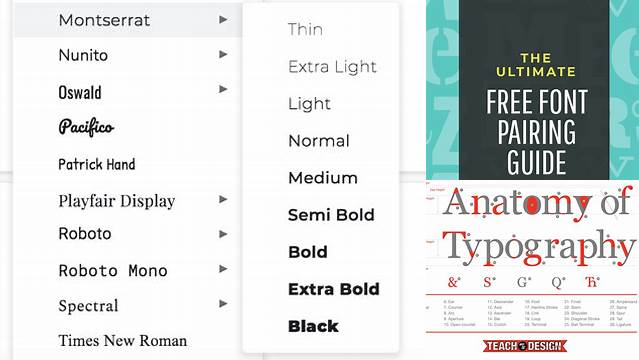
Font Family Free
Looking for the perfect font family free to elevate your designs? You're in the right place! Fonts are the unsung heroes of design, subtly influencing how your message is received. Choosing the right font family can make or break the visual appeal and readability of your work. In this comprehensive guide, we'll dive deep into the world of free font families, exploring their uses, how to find them, and tips for making the most of them. Whether you're a seasoned designer or just starting, understanding font families is crucial.
H2: What Exactly is a Font Family?
Alright, guys, let's break it down! A font family free is a set of fonts that share a common design and style, but with variations in weight, width, and slant. Think of it like a family of fonts – they all have the same DNA, but each member has its own unique personality. This consistency is super important for creating a cohesive and professional look. Instead of using completely different fonts for your headings, body text, and subheadings, you can use different fonts within the same family. This keeps everything looking unified and easy on the eyes. Common font families include Arial, Times New Roman, and Helvetica, which you probably already know, but there's a whole world of free font families out there just waiting to be discovered. Each font within a family is designed to work well with the others, ensuring that your design will be consistent and readable. Font family free offer a variety of options, such as bold, italic, and condensed versions, allowing you to create visual hierarchy and emphasize key information without switching to completely different fonts, helping you maintain a consistent brand identity. When choosing a font family free, consider the mood or tone you want to convey. Is your project serious and professional, or fun and playful? The font family should match the overall design aesthetic. And don't forget about readability! Always make sure the font is easy to read, especially for body text. You can find font family free options on Google Fonts, Font Squirrel, and other websites dedicated to font collections. Be sure to check the license before using any font in your project. Some fonts are free for personal use but require a license for commercial use. This will help you comply with copyright laws and avoid any legal issues.
H3: Choosing the Right Font Family for Your Project
Choosing the right font family free is a critical step in any design project, guys! The right font family can greatly enhance the overall visual appeal and effectively communicate your message. The selection process involves careful consideration of several factors: the project's purpose, the target audience, and the desired tone. The initial step is determining the primary goal of your project. Is it a website, a brochure, or a social media post? Different projects have different requirements and the font families suitable for websites are not always ideal for print materials, and vice versa. The next factor to consider is your target audience. Are you aiming at a younger demographic or an older, more professional group? The font family should resonate with them. Also, assess the overall tone that you want to establish. A playful project might benefit from a font family that’s more creative and informal, while a professional project should stick to a more classic and elegant font family. Now, let's discuss the characteristics of different font families, and the most commonly used types of fonts you can get as font family free are: Serif fonts, with their traditional design, are often seen in books and newspapers, and are excellent for projects that require a traditional and refined feel. Sans-serif fonts are much more modern and clear, and they’re best used for digital interfaces and modern designs. Display fonts are designed for headings and titles. They are usually very unique and visually striking. Monospace fonts have all characters occupying the same horizontal space, and are useful for code and text-heavy projects. When choosing a font family, consider the available weights and styles. A good font family often includes several weights (like light, regular, bold, black) and styles (like italic, condensed, and expanded). This provides flexibility in creating visual hierarchy within your designs.
H2: Where to Find Awesome Free Font Families
So, where can you find these amazing font family free resources? There are tons of great websites out there, but let's highlight some of the best. This is where the fun begins! One of the most popular and reliable sources is Google Fonts. It's a massive library of open-source fonts, all free to use for both personal and commercial projects. You can easily browse, search, and download fonts directly from their website. The site also provides previews and allows you to compare fonts. Another excellent option is Font Squirrel, known for its high-quality fonts that are free for commercial use. They have a curated selection of fonts, so you can rest assured that you'll find some gems. Font Squirrel also offers a font identifier tool, which can help you identify fonts from images. Then there is DaFont, which has a huge collection of fonts. However, it's important to note that not all fonts are free for commercial use, so always double-check the license before using them in your projects. Be aware that it's essential to check the license agreements for each font. Some fonts are licensed under the SIL Open Font License, which allows for free use, modification, and distribution, while others may have more restrictive licenses. Font family free is usually easier to find when you search on the internet, but be sure to check the terms of use before downloading and using any font to ensure you’re complying with the requirements. In addition to these sites, check out other sites like 1001 Fonts and Behance, as well. These sites often feature collections of free fonts and can be great sources of inspiration. Explore them, and you might stumble upon some hidden treasures.
H3: Google Fonts: Your Go-To Resource for Free Fonts
Google Fonts has become the standard resource for anyone looking for a font family free. Its wide selection, user-friendly interface, and open-source nature make it the top choice for designers and developers of all levels. As mentioned earlier, all fonts on Google Fonts are free for personal and commercial use, making it a safe and practical solution for various projects. Its user interface is incredibly intuitive, allowing for easy browsing and filtering of fonts. You can browse fonts by categories (serif, sans-serif, display, etc.) or filter by properties such as thickness, width, and slant. Google Fonts also allows you to preview the fonts, and see how they look in different text styles and sizes. The site offers suggestions for font pairings to help you get the most out of your font family free collection, which is great for beginners. It also allows you to download all the font files in one go. The site also provides detailed information about each font, including its designer, style options, and the license terms. Google Fonts also provides an embed code for the fonts to be used in web projects. This allows you to easily integrate the fonts into your website by simply copying and pasting the code into your HTML. Google Fonts is also optimized for fast loading times, and this is another reason why it is so popular. It uses a content delivery network (CDN) to ensure that the fonts are loaded quickly on different devices and browsers. The fonts are also available in a variety of formats, like the standard formats (e.g., .ttf, .otf) so they can be used in any design software or operating system. Because of its flexibility, Google Fonts has made it the go-to option for designers globally, and the best place to start when you are looking for font family free.
H2: Essential Tips for Using Free Font Families Effectively
Alright, guys, you've got your font family free, now what? Here are some tips to use them effectively. Let's get your designs looking sharp! First, remember the importance of pairing fonts wisely. Avoid pairing fonts that are too similar, as this can look uninspired. Instead, experiment with contrasting styles. Try using a bold, attention-grabbing font for headings and a more subtle font for body text. This contrast creates visual interest and improves readability. Second, pay attention to readability, especially for body text. Choose fonts that are easy to read at different sizes and on different devices. Avoid overly decorative or complex fonts for large blocks of text. Simple, clean fonts are usually your best bet for body text. Third, consider the context of your design. Think about where your design will be used. A font that looks great on a website might not be the best choice for a printed brochure. Fourth, respect the font's license. Make sure you understand the license terms for each font family free you use. Some fonts are free for personal use but require a license for commercial use. Don’t get caught up in legal issues! Lastly, test your fonts on various devices and browsers. The way a font looks can vary depending on the device and browser. Always preview your design on different platforms to make sure it looks consistent across the board. With some practice, you'll quickly learn how to find and use font family free to their maximum potential.
H3: Font Pairing: Finding the Perfect Combinations
Font pairing is an art form that can elevate your designs from good to fantastic. The perfect font pairing creates visual harmony and strengthens the overall message. Guys, let's talk about the different types of font pairings and how to create a great one. Start by understanding that contrast is important. Pairing fonts that are too similar can make your design look boring, whereas a good contrast highlights each font’s unique characteristics. Let's discuss the common types of font pairings: * Contrast pairing: Combining different font types creates a powerful visual contrast. This is a great way to make key elements like headings stand out. * Similar font pairings: This pairing involves fonts that share similar qualities. They can be used to create a sense of consistency and unity. * Monotype font pairings: These pairings use fonts that are closely related, but with distinct differences. This method of font family free creates subtle differences that keep your design dynamic. Also, there is a simple approach you can use: * Use a serif font with a sans-serif font. These fonts have very different styles. This method can create excellent contrast. * Pair a bold font with a lighter one. This creates clear visual hierarchy. * Pair a decorative font with a simpler one. This way you will keep your design interesting and readable. * Explore different font families. Many font families include a diverse range of styles, and offer the options you need for any kind of design. When you're trying to create the perfect font pairing, don't be afraid to experiment. There are lots of resources for pairing font suggestions. Websites like Google Fonts provide suggestions for font pairings. When experimenting, always make sure you prioritize readability and the overall visual balance. With a little practice, you’ll become an expert in pairing fonts. The best thing you can do is to familiarize yourself with a wide range of font family free to understand which styles will work well together.
H2: Understanding Font Licenses: A Must-Know
It's crucial to understand font licenses when you use font family free, my friends! Font licenses determine how you can use a font and what you're allowed to do with it. Ignoring these licenses can lead to legal issues, so let's break it down. The main types of font licenses are: * SIL Open Font License (OFL): This is a very liberal license. Most fonts on Google Fonts are licensed under the OFL. It allows for free use, modification, and distribution, even for commercial purposes. * Desktop License: This type of license is designed for use in design software for print and digital design. * Web License: This license is specifically for the use of fonts on websites. It usually covers a certain amount of page views or traffic. * Commercial Use: This license is needed when a font is used for commercial purposes. This license can be complex and may have different terms and conditions depending on the font and the licensing company. It’s important to read the fine print and understand the license terms before using any font family free, especially for commercial projects. Always check the specific terms of the license for each font. Some fonts are free for personal use, but require a license for commercial use. If you're unsure about a license, it’s always best to contact the font designer or the website where you found the font. Make sure to keep a record of your license. This will help you if you need to provide proof of your right to use the font. In many cases, understanding the license is the difference between a great design and a possible legal problem.
H3: Common Font License Types Explained
To stay safe when you use a font family free, understanding the different license types is crucial. These licenses dictate how you can use a font, and can vary greatly depending on the font foundry and the distribution method. Let's dive into the most common license types, guys. The most common types of font licenses: * SIL Open Font License (OFL): This license allows free use, modification, and distribution, even for commercial purposes. It’s super versatile and is a fantastic option for many projects. * Desktop License: This is a common type of license that is used when a font is downloaded and installed on a computer for use in desktop applications such as design software, creating documents, and other offline projects. * Web License: This license is created for use of fonts on websites. With this license, you can embed the font in your website code, so it displays correctly on the website. * App License: This license is for the font's use in mobile apps. The exact terms can vary depending on the license, so it's important to read the fine print. * EULA (End User License Agreement): This agreement specifies the terms and conditions for using the font, including permitted uses, restrictions, and any fees associated. Font family free are generally available under licenses like the SIL Open Font License (OFL) or similar open-source licenses, which allow for broad usage. Be aware that the specifics of each license are important to check for, to avoid any issues. When selecting a font family free, always check the licensing terms to see how you can use the font. Pay attention to the commercial use license and the usage limitations to ensure compliance. With a bit of research and attention, you can easily navigate font licenses.
H2: Designing with Free Font Families: Best Practices
Using font family free creatively requires some know-how. Following these design tips is how you can make your projects stand out, folks. First, embrace the power of hierarchy. Use different font sizes, weights, and styles to create visual interest and guide the reader's eye. Use bold fonts for titles and headings, and a lighter weight for the body text. Second, manage your white space. Give your text enough space to breathe. White space improves readability and prevents your design from feeling cramped. Third, use color carefully. The right color palette can enhance your design. Make sure the colors you choose complement your fonts. Use contrasting colors to make text pop against its background. Fourth, consider the layout. The layout of your design impacts how your message is received. Experiment with different layouts to find what works best for your project. Fifth, test your design on different devices. The way your design looks can change depending on the device and browser. Lastly, use different fonts to create consistent design. By using fonts from the same family you’re creating a cohesive visual appeal. Choosing a suitable font family free and following these best practices will help you create a stunning and professional-looking design.
H3: Creating Visual Hierarchy with Typography
Creating visual hierarchy with font family free is an important step in design, guys. Visual hierarchy helps guide the viewer's eyes and make your message much clearer. By adjusting the size, weight, and style, you are able to create the right hierarchy in your design. The first thing you can do is to use size to create a visual hierarchy. Your headings should be much bigger than your body text. Secondly, use different font weights. Bold fonts grab attention. Use these to emphasize important information and make it stand out. The next thing you can do is to use color. Color can be used to emphasize elements within the hierarchy. By using color you will guide the viewer's eyes. Consider using contrasting colors to emphasize elements. Lastly, remember that spacing is important. Increase the space between text elements to draw attention to specific sections. Make use of these practices, and your design will be much more effective! When selecting a font family free, always look for a font family with a wide range of styles. This helps you create different visual effects. Remember that the goal of visual hierarchy is to guide the reader, and make it easy for them to understand your message. Experiment with different techniques and see what looks best for your projects.
H2: Font Families for Different Design Styles
There's a font family free for every design style out there, folks! Understanding how different font families complement different aesthetics is key to creating visually stunning projects. Are you looking for a modern minimalist design? Or something more retro? Here's a guide to some popular design styles and the fonts that work well with them: * Modern & Minimalist: For these designs, clean sans-serif fonts like Open Sans or Lato are ideal. These fonts have a simple, uncluttered look, which is a perfect match for a minimalist aesthetic. * Vintage & Retro: If you're aiming for a vintage look, consider serif fonts like Playfair Display or even script fonts. These fonts create a sense of nostalgia and are great for logos and headings. * Elegant & Classic: A classic design calls for a serif font with a touch of sophistication. Fonts like Bodoni or Garamond are perfect choices for creating a luxurious feel. * Bold & Playful: If you want your design to be bold and playful, consider using display fonts. These fonts have a unique style and will grab people's attention. Choosing the appropriate font family free is a critical step in achieving the style that you are looking for. Match the font with the rest of the design. Pay attention to the color scheme and the graphics. When selecting a font, choose one that reflects your brand's personality. With this in mind, be sure to always keep in mind the tone you want to convey. Understanding the different font families and how they relate to various styles will allow you to make an informed decision about your design project.
H3: Best Font Families for Websites
Choosing the right font family free is critical for a website's user experience and overall aesthetic. The best font families improve readability and create a seamless user experience. Here are some recommended fonts for websites: * Sans-serif: Clean sans-serif fonts are very popular for websites, because they are very easy to read on screens. Examples include Open Sans, Roboto, and Montserrat. * Serif: Serif fonts are also a good option for websites. These fonts can look amazing on websites, making them look more elegant. Examples include Merriweather and Lora. * Font pairings: Pairing these fonts together is also a great way to enhance your website. For example, you can use a sans-serif font for the body text and a serif font for the headings. This will create contrast and visual interest. When picking font family free for your website, you have a few important factors to take into consideration: * Readability: Your website’s font needs to be clear and easy to read, no matter the screen. * Legibility: Be certain that your fonts are legible at all sizes. * Website Performance: The best font is a fast-loading one. * Brand consistency: Ensure that the font complements your brand's overall visual style. Consider how the font can improve your brand's message. The right fonts create a great user experience and enhance your website's overall effectiveness. Use this knowledge of font families for your next web project!